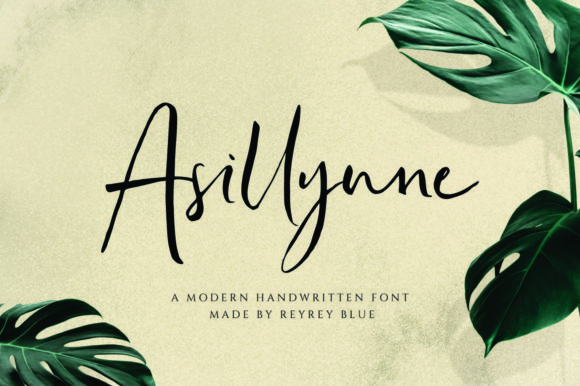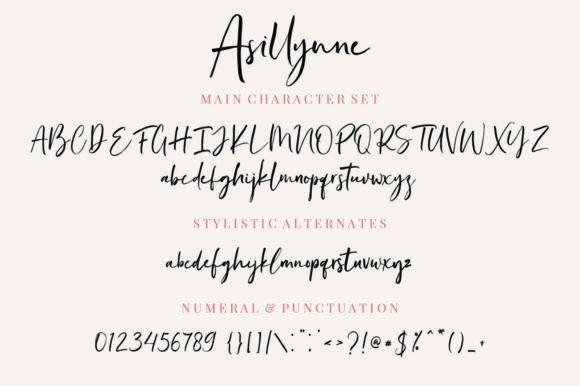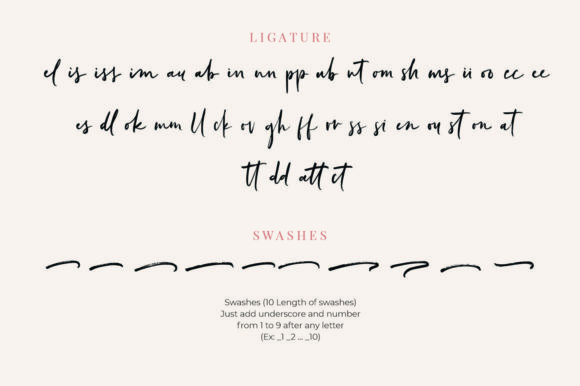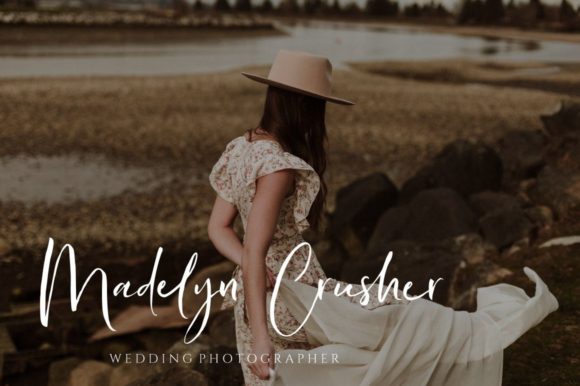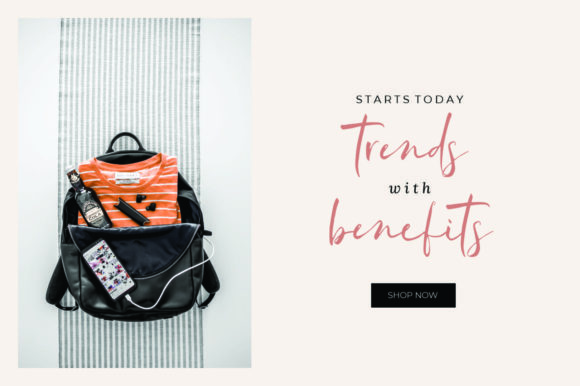
About Asillynne Font
Asillynne is a lovely script font featuring charming, playful characters that seem to dance along the baseline. This font is PUA encoded which means you can access all of the amazing glyphs and ligatures with ease!